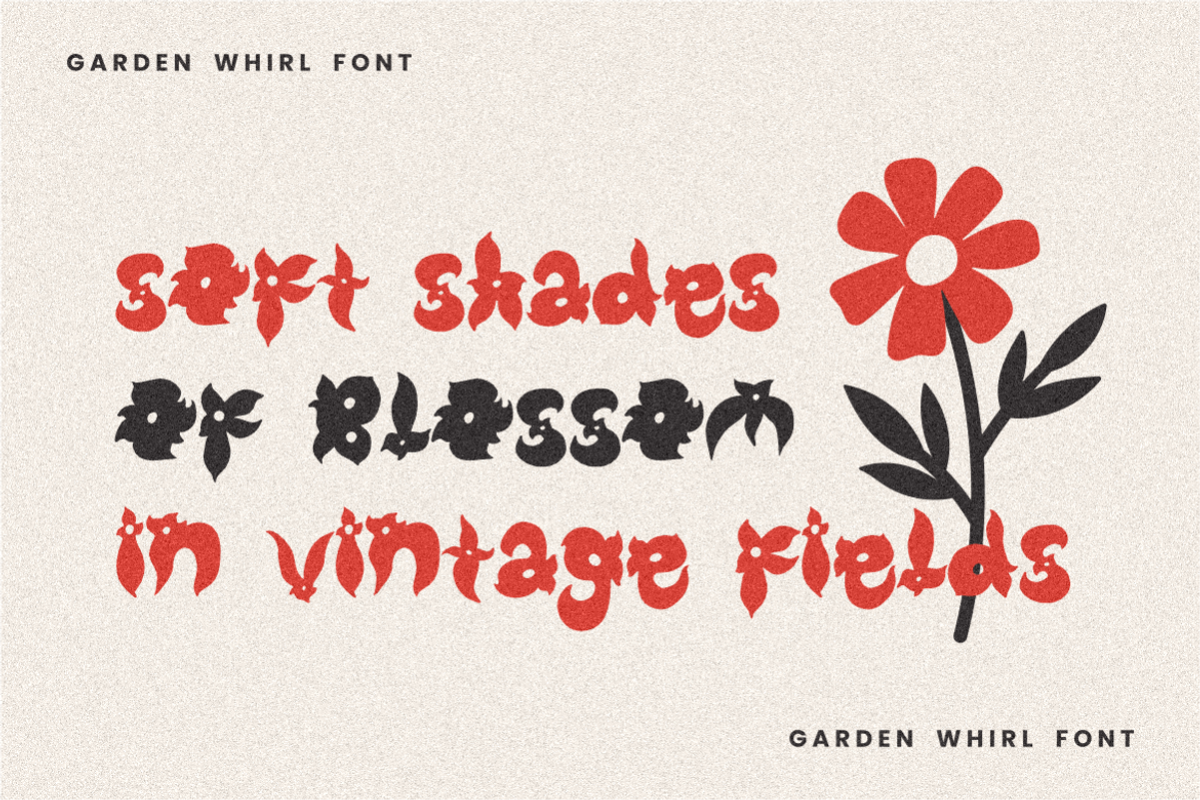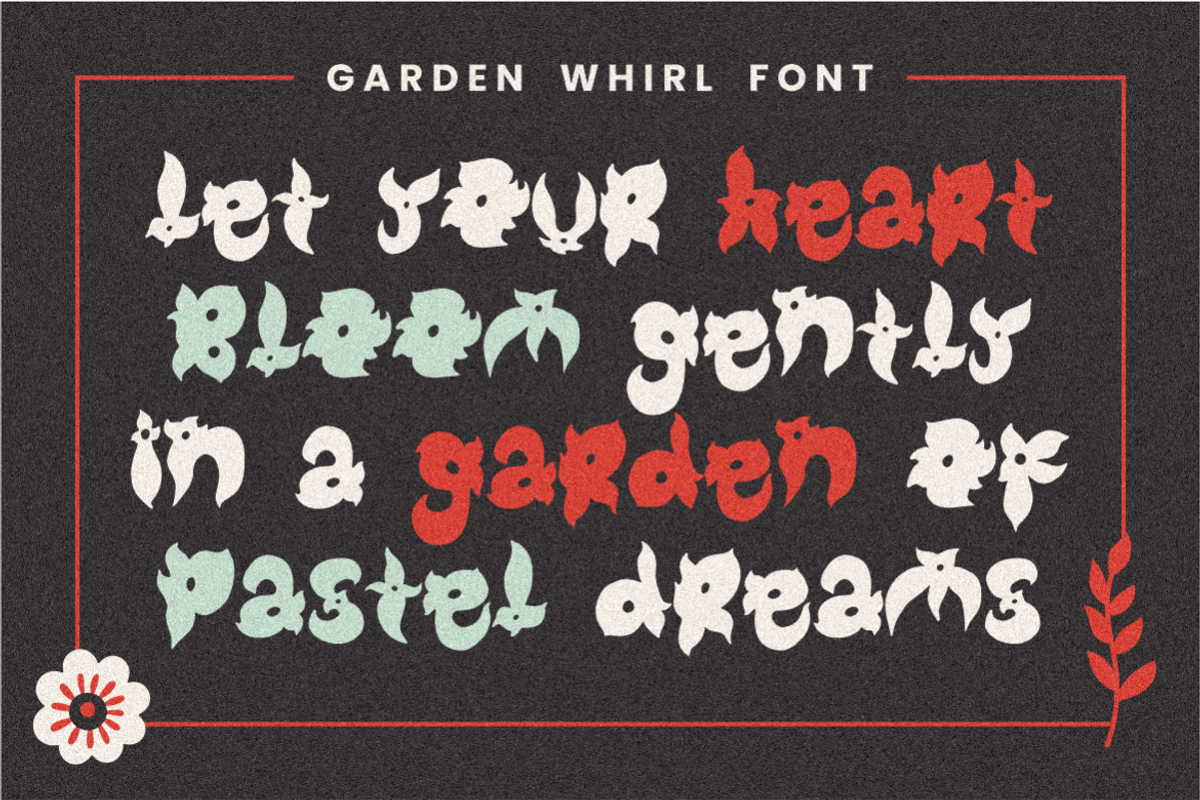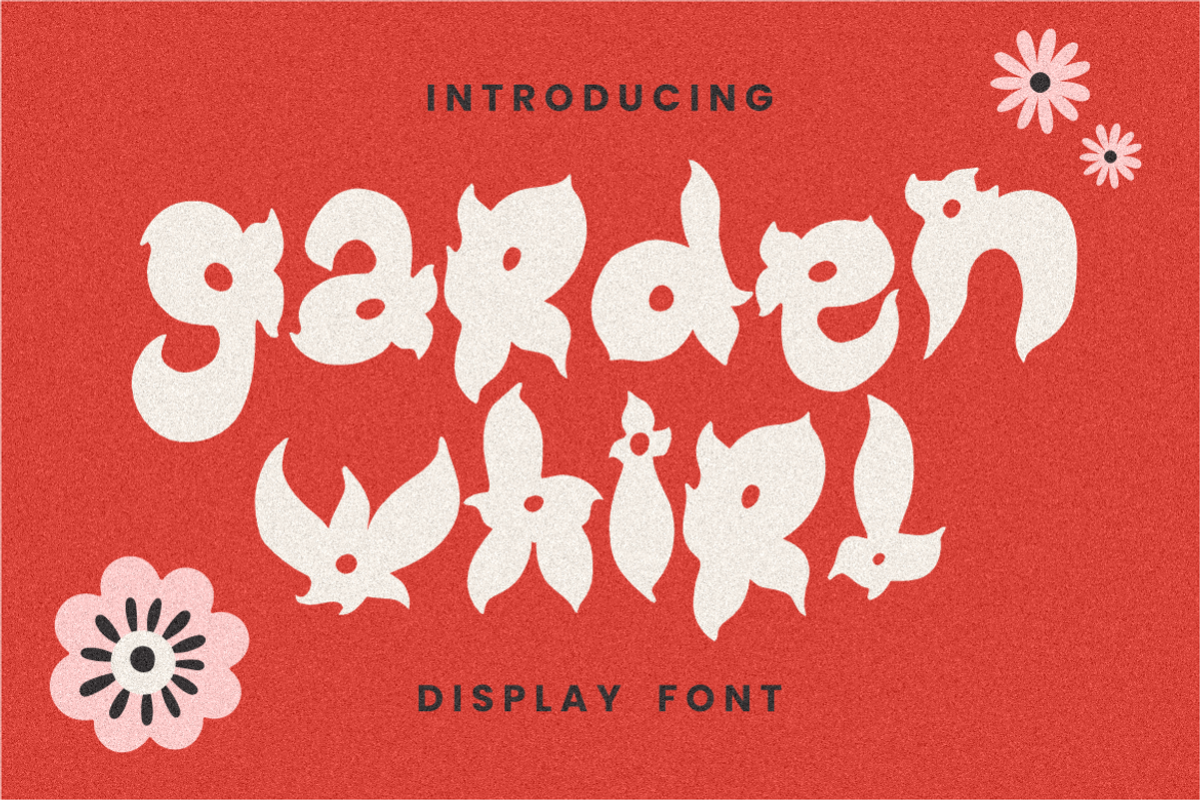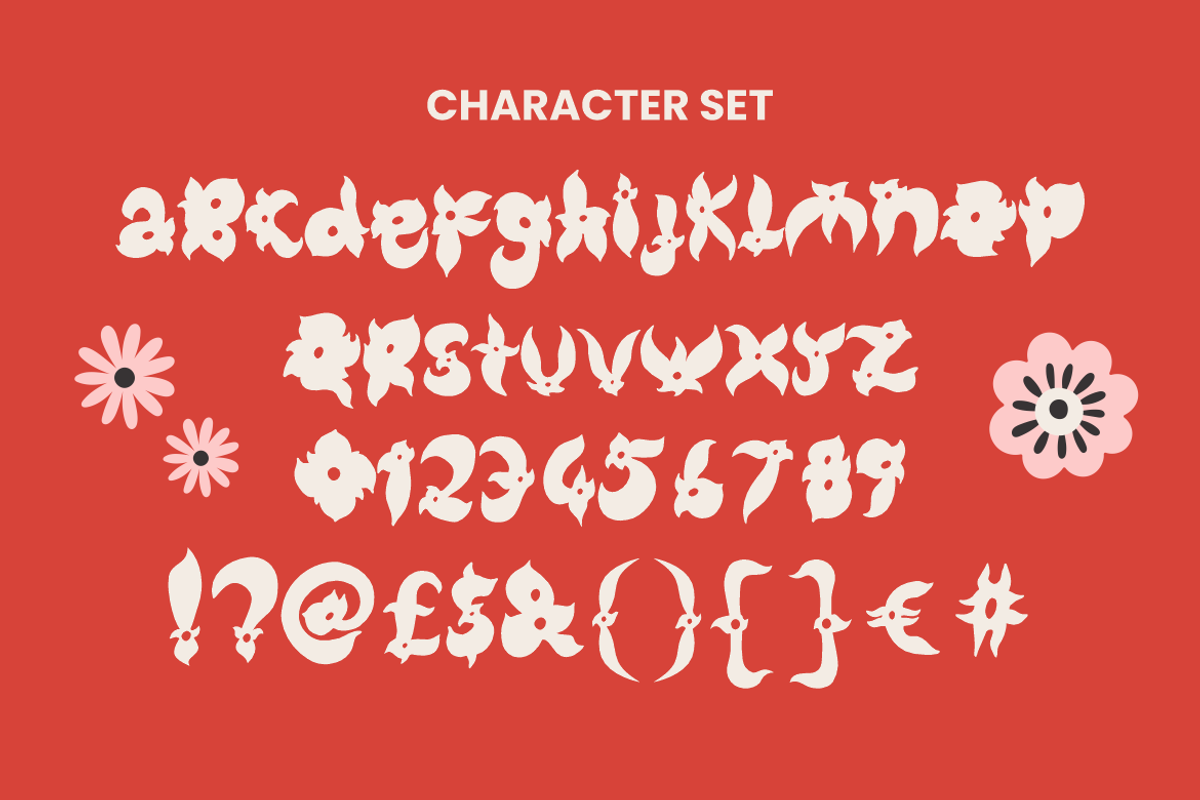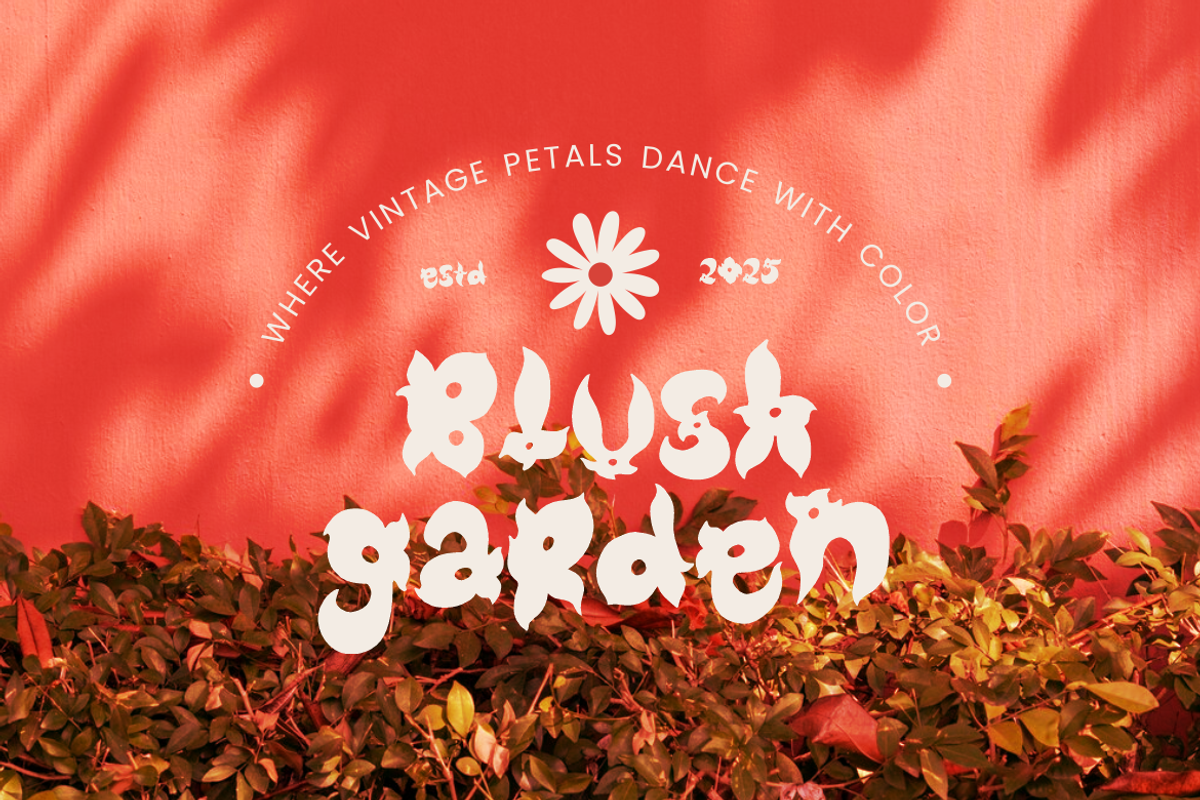
Garden Whirl - Display Font
Introduce a fresh splash of creativity with Garden Whirl, an exquisite display font that blossoms with unique floral shapes. Inspired by the whimsical and organic beauty of nature, each character intricately weaves floral motifs into its curves and edges, creating an artistic and playful aesthetic. This font stands out due to its distinctive design, incorporating petals and blooms directly into the typography. The irregular, yet harmonious forms of Garden Whirl make it a captivating choice for adding a distinctive flair to your visual projects, especially when aiming for a playful or vintage-inspired look.
Perfectly suited for a wide range of creative designs, Garden Whirl is ideal for logos, branding materials, posters, invitation cards, packaging, book covers, and titles. Its layout versatility and charming floral accents ensure it catches attention, adding a stylish yet playful dimension to your designs. Whether you're crafting personalized greeting cards, decorating vibrant packaging, or highlighting headlines in magazines and promotional materials, this font guarantees your project blooms beautifully. Let your creativity grow wild with Garden Whirl, a font designed to captivate and inspire.